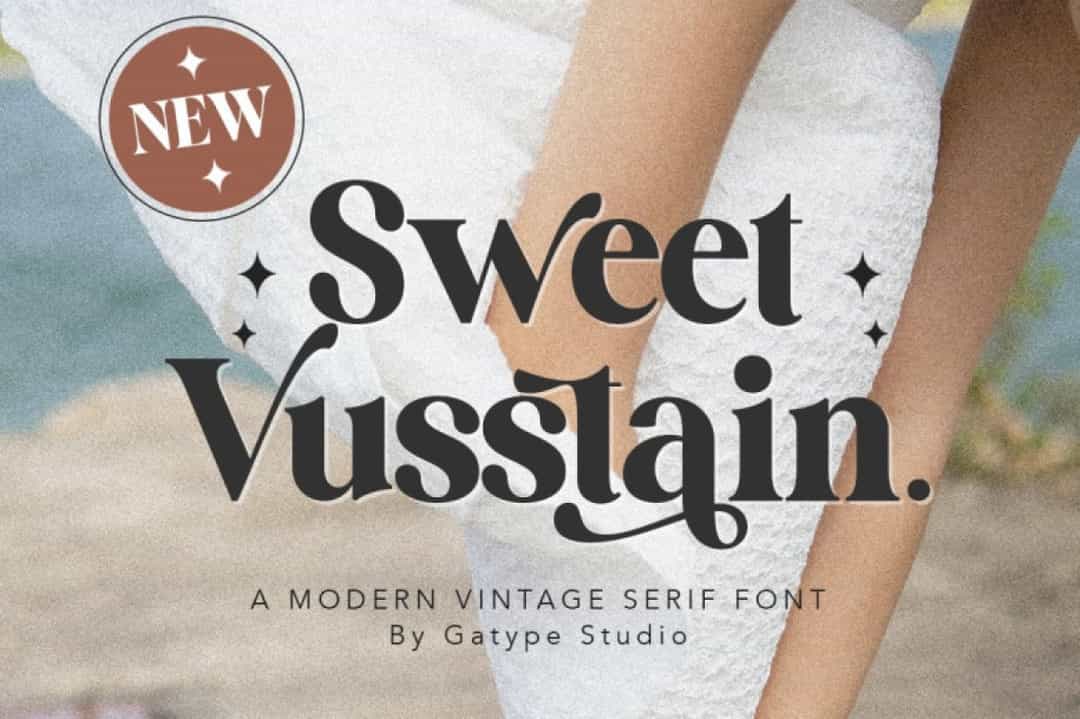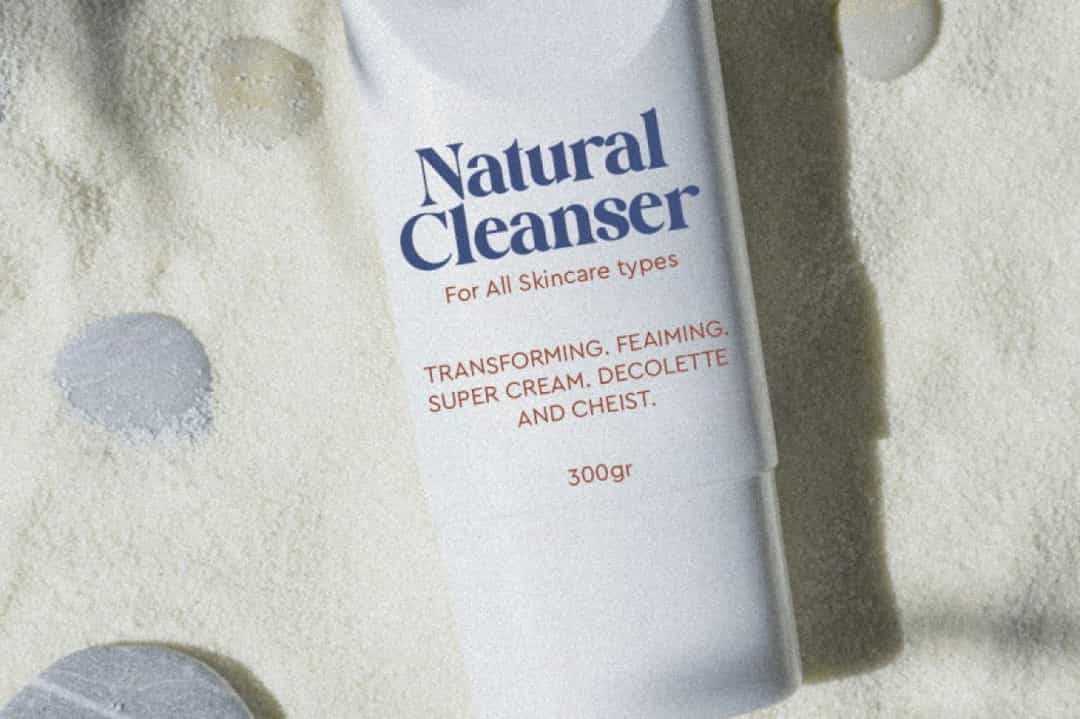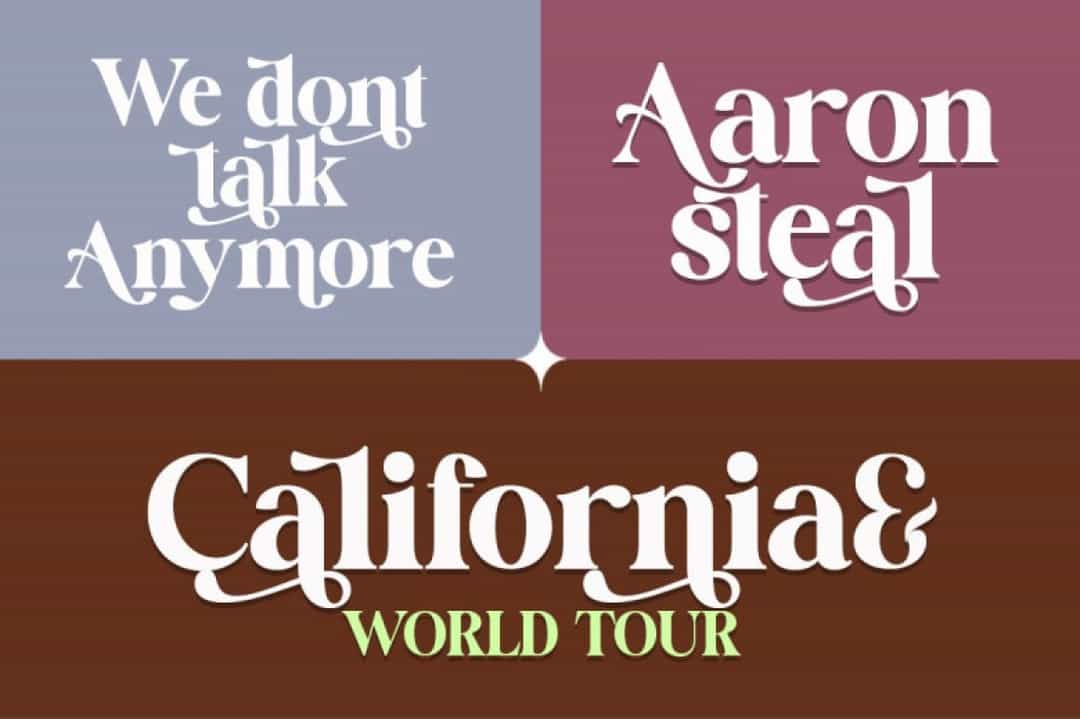
Sweet Vusstain is an antique serif typeface with a modern, stylish, chic and fun aesthetic that is both versatile and gorgeous regardless of screen size. This font can easily be read at any font size while offering plenty of bindings that allow designers to create beautiful designs.